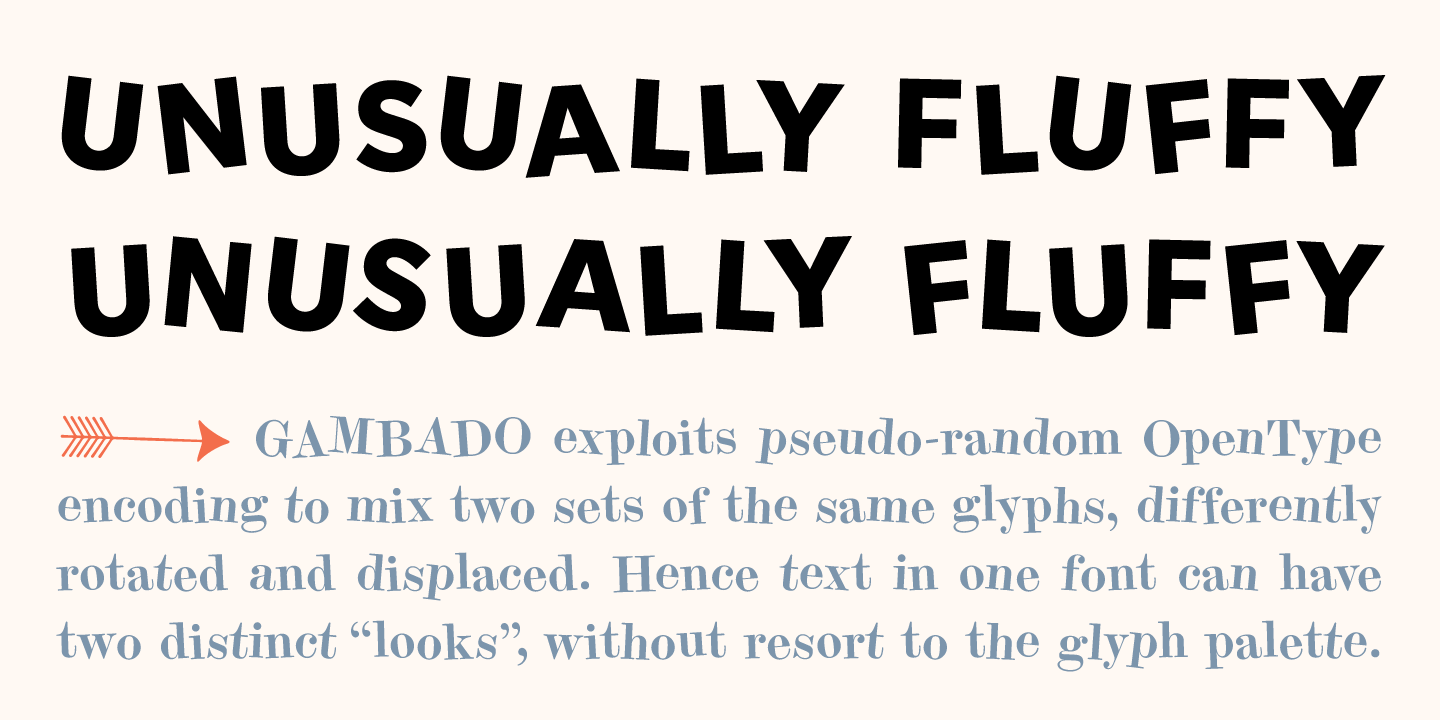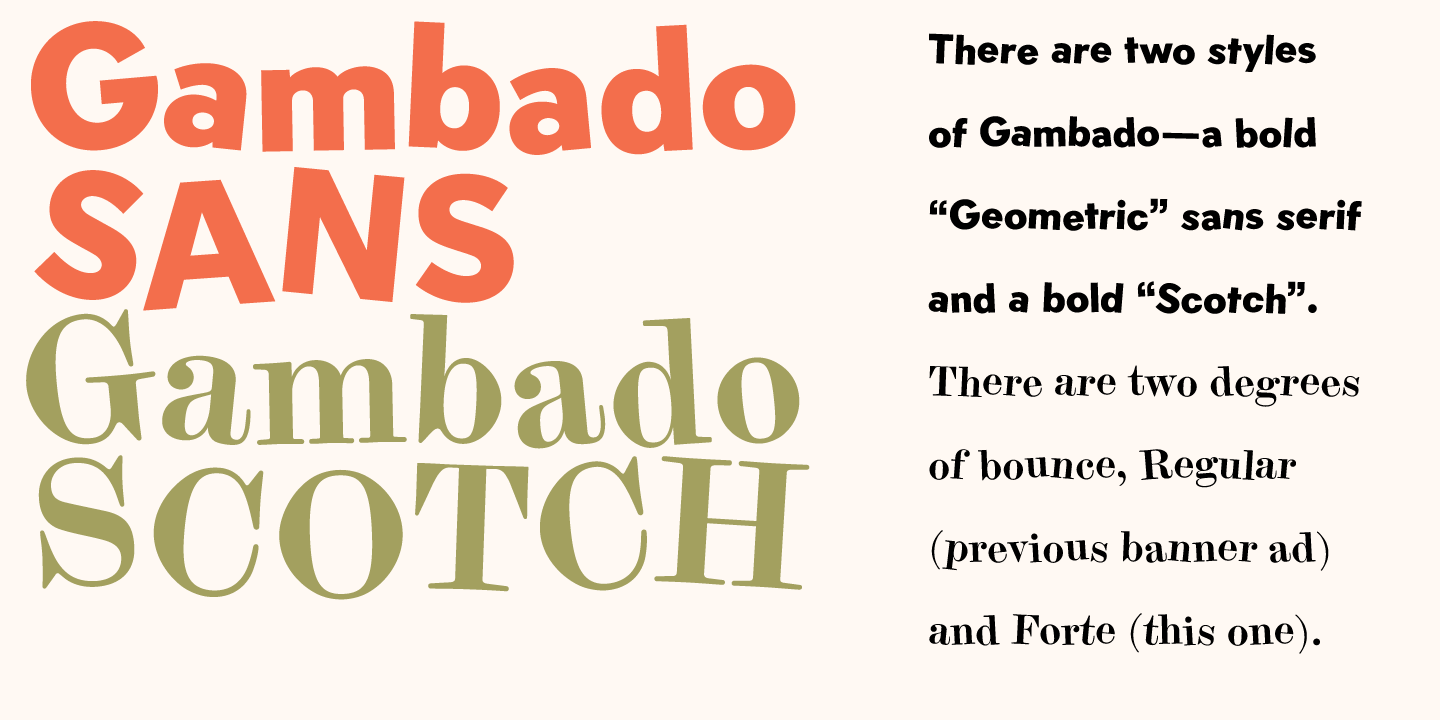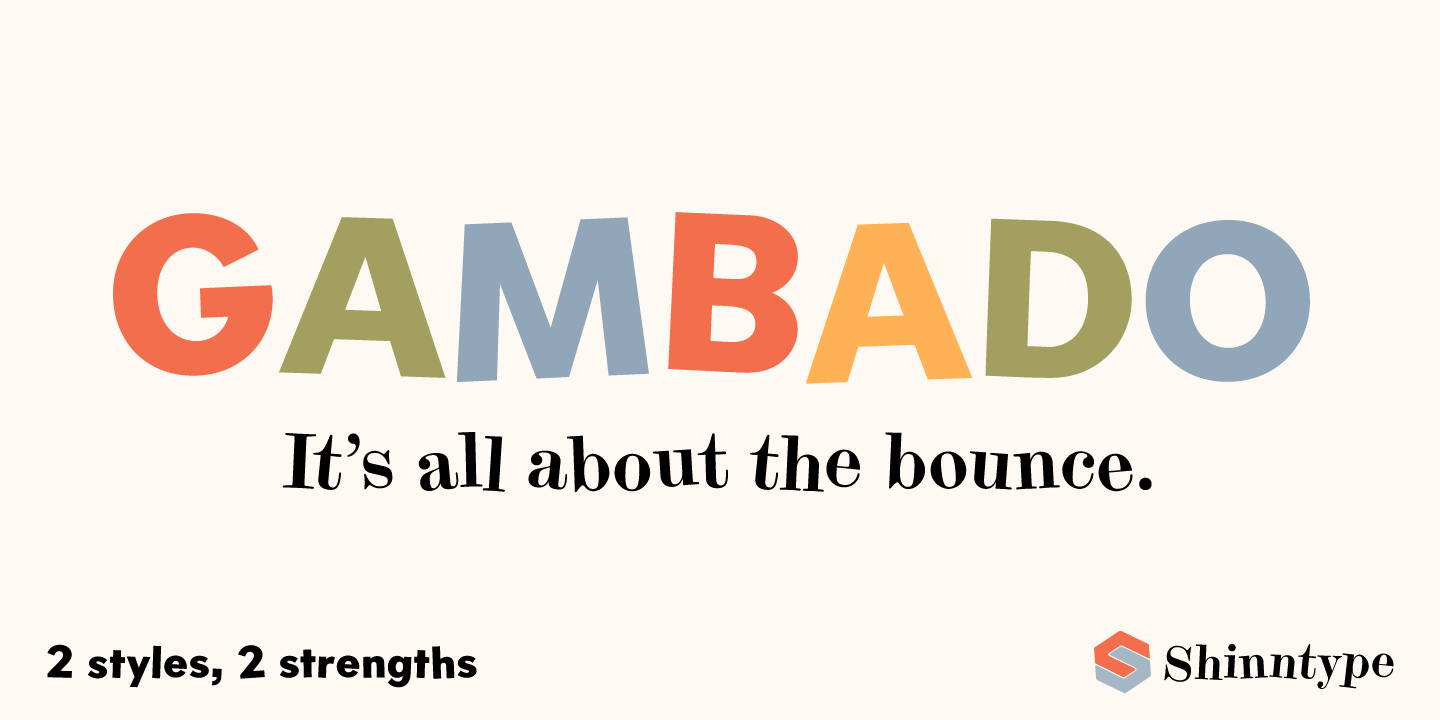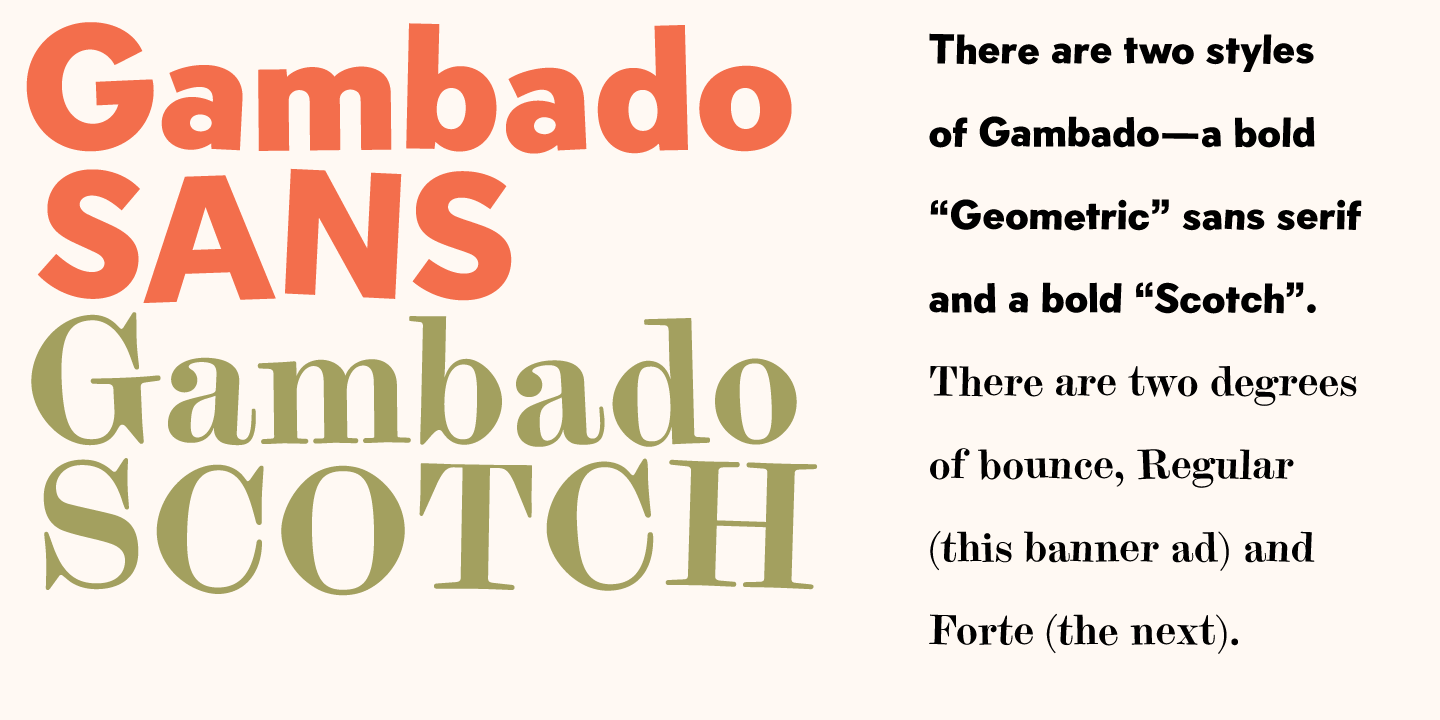
Gambado
Bounced? is the technical term for a higgledy-piggledy style of lettering in which characters are shaken up by a combination of rotation and vertical displacement from the presumed norm of upright stance on a baseline. Now, by utilizing pseudo-random…